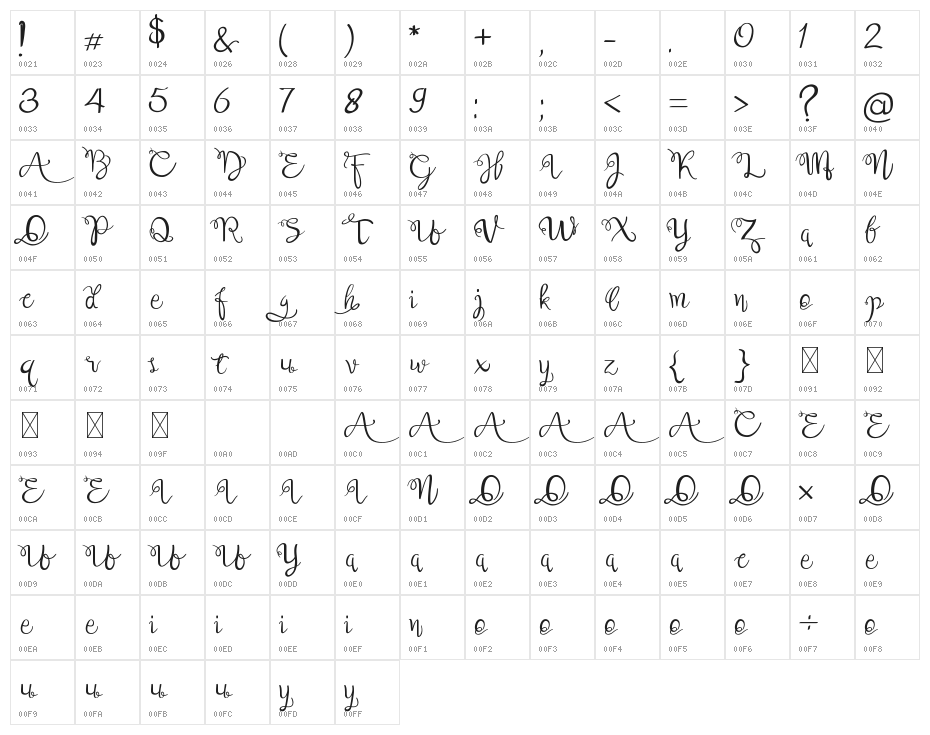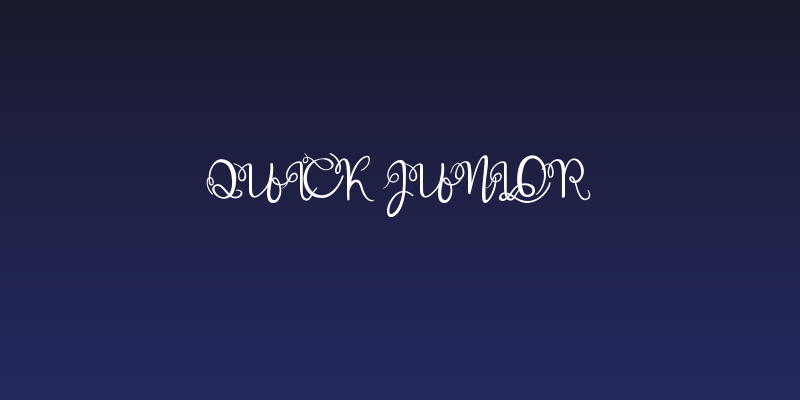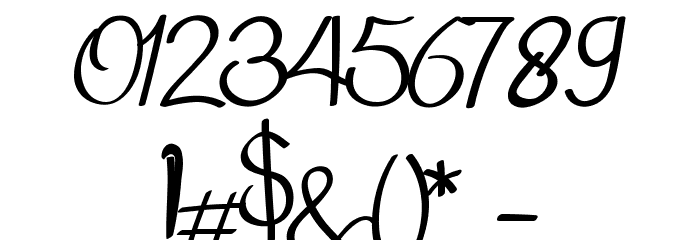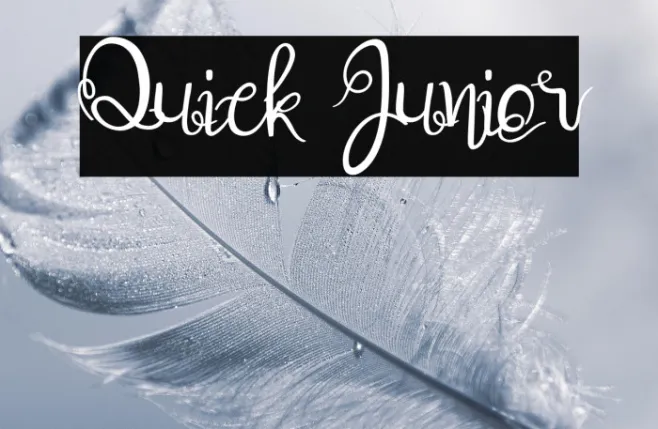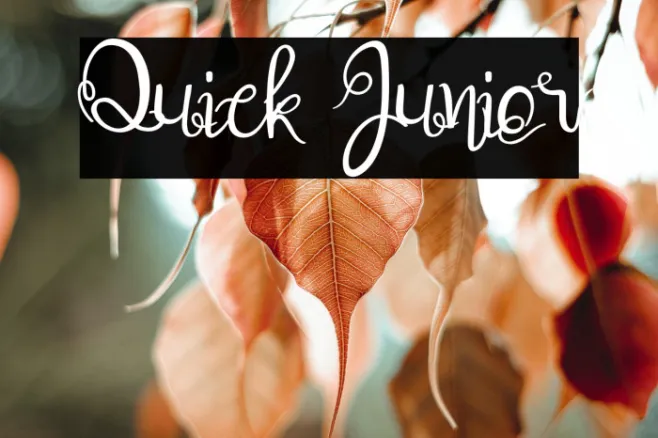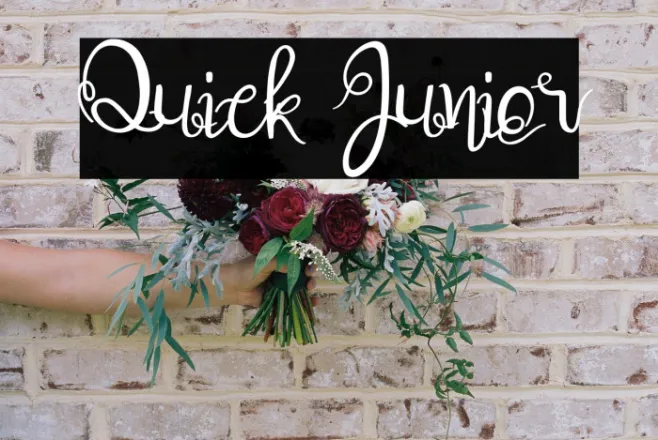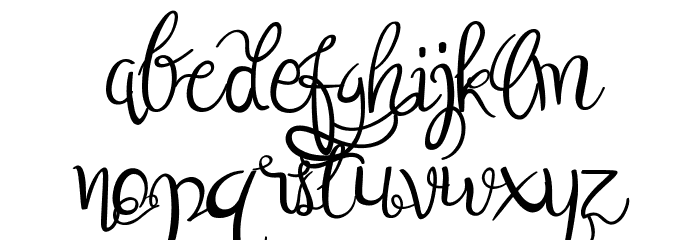
Quick Junior Font
Quick Junior Description
This font exhibits a whimsical and decorative style, characterized by its flowing, cursive script. The letters are interconnected with elegant loops and swirls, giving it a playful yet sophisticated appearance. The uppercase letters are particularly ornate, with additional flourishes that enhance their visual appeal. The lowercase letters maintain a consistent style, with smooth curves and a slightly informal touch. The numerals are clear and legible, maintaining the same decorative flair. Special characters are creatively integrated, matching the overall aesthetic. This font is ideal for projects that require a touch of elegance and creativity.